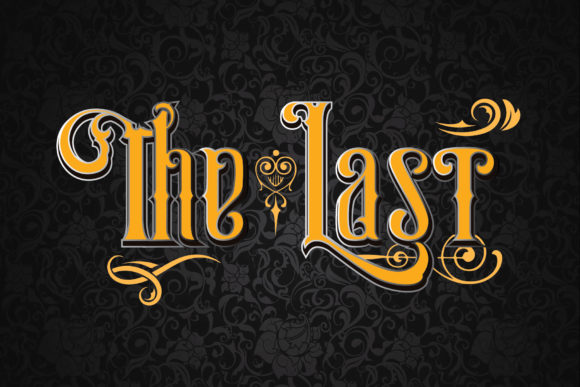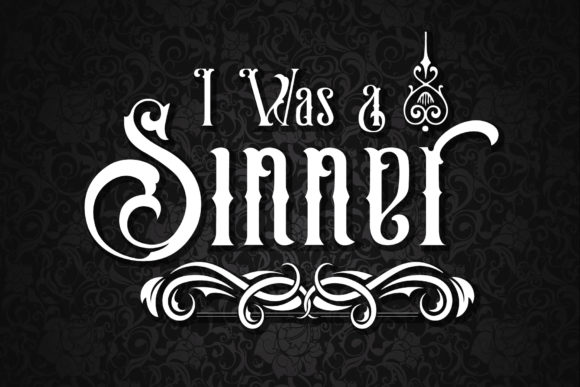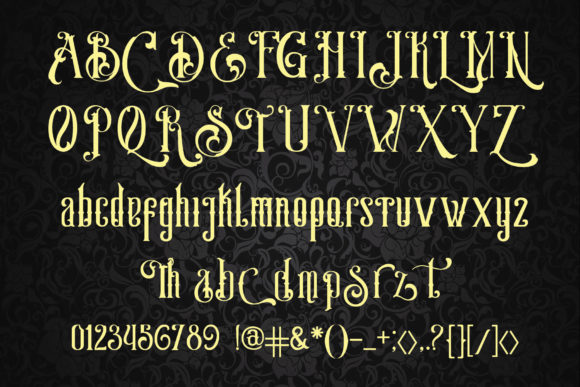
Introduction to Esentrik Font
The Esentrik is a strong display font.
It was inspired by vintage movie posters with an oriental look Its powerful style is perfect for branding, logos, magazines, films, and much more.
Key Features of Esentrik Font